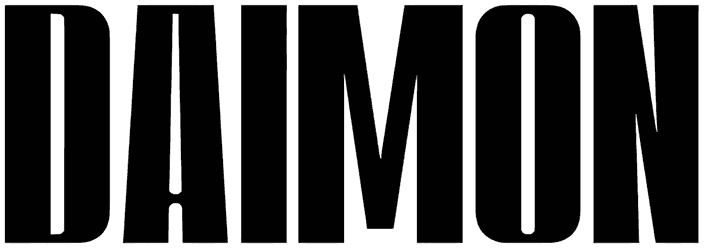
Would you like to show off your words with a stylish and classic outward appearance? As a sans-serif font, Glowforge, with its unique and catchy mood, would be perfect to make this happen. You can place this striking item on your intended designs, such as posters, logos, magazines, covers, or the like, and show off your creativity.